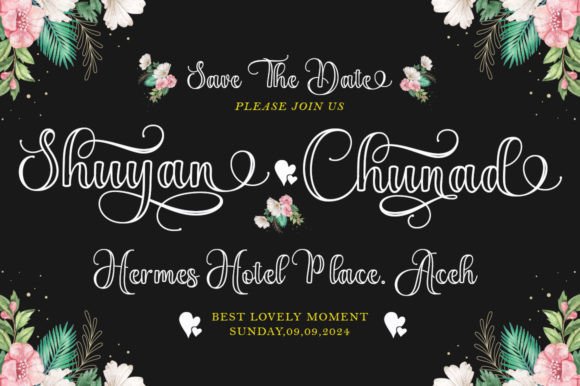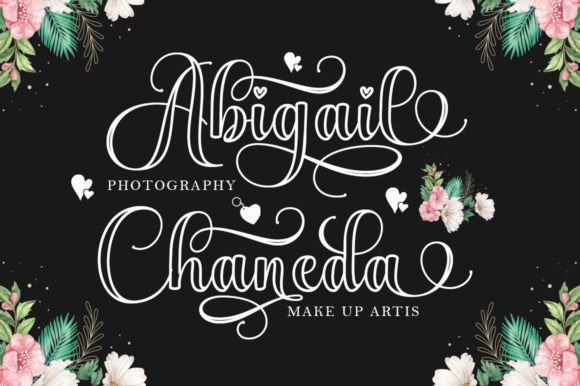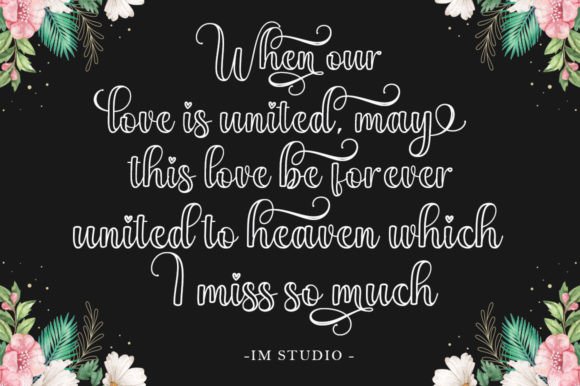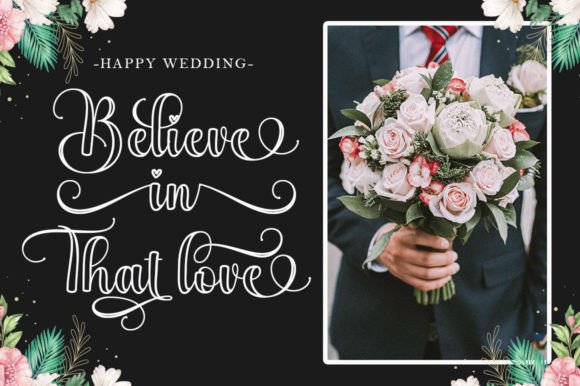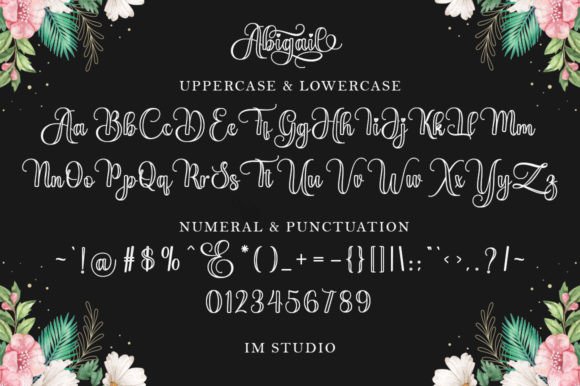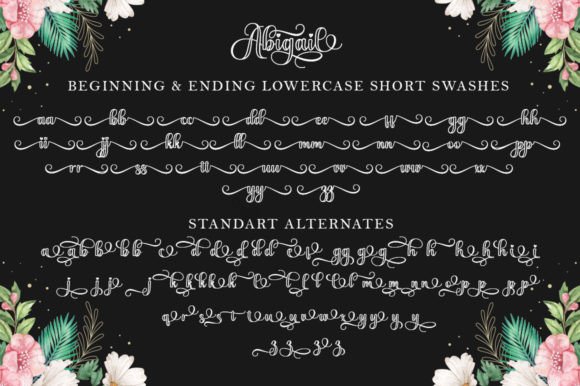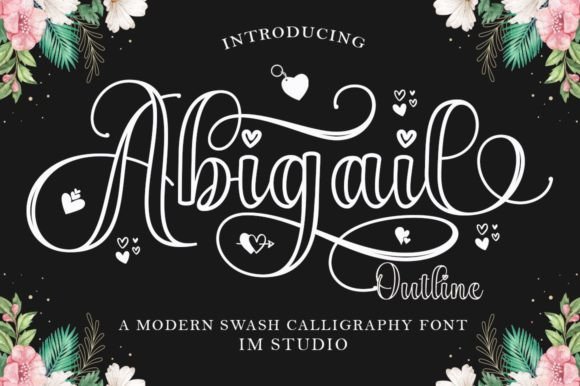
Introducing Abigail Outline Font: A Cute and Versatile Handwritten Font
Are you a designer or crafter looking for a font that can add a touch of warmth and personality to your projects? Look no further than the Abigail Outline Font. This beautiful, handwritten font is perfect for anyone who wants to create unique and eye-catching designs that stand out from the crowd.
What Makes Abigail Outline Font So Special?
Abigail Outline Font is a cute, versatile, and flexible handwritten font that is sure to turn any project idea into a real work of art. Its warm, romantic, and jovial style makes it perfect for a wide range of design projects, from wedding invitations and greeting cards to branding and packaging.
One of the things that sets Abigail Outline Font apart from other fonts is its unique outline style. The font features a delicate outline that adds a touch of elegance and sophistication to any design. At the same time, the font’s handwritten style keeps things feeling friendly and approachable.
PUA Coded for Easy Access to Glyphs and Swashes
Abigail Outline Font is PUA (Private Use Area) coded, which means that you can access all the glyphs and swashes easily. This makes it simple to customize your designs and add your own personal touch. With PUA coding, you can use the font’s built-in features to create unique and complex designs that would be difficult or impossible to achieve with a standard font.
Abigail Outline Font is a great choice for designers and crafters who want to add a personal touch to their projects. The font is easy to use and can be installed on your computer or used online. Whether you’re creating digital designs or handmade crafts, Abigail Outline Font is a versatile tool that can help you achieve your creative vision.
Use Abigail Outline Font for a Wide Range of Projects
Abigail Outline Font is a versatile font that can be used for a wide range of projects, including:
• Greeting cards and gift tags
• Branding and packaging
• Signs and posters
• Digital designs, such as social media graphics and blog headers
• Handmade crafts, such as scrapbooking and journaling
Why Choose Abigail Outline Font?
There are many reasons to choose Abigail Outline Font for your design projects. Here are just a few:
• Unique and eye-catching style: Abigail Outline Font has a distinctive style that will set your designs apart from the crowd.
• PUA coded for easy access to glyphs and swashes: This feature makes it easy to customize your designs and add your own personal touch.
• Versatile: Abigail Outline Font can be used for a wide range of projects, from digital designs to handmade crafts.
Abigail Outline Font is a beautiful, versatile, and flexible handwritten font that is perfect for designers and crafters who want to add a touch of warmth and personality to their projects. With its unique outline style, PUA coding, and easy-to-use design, this font is sure to become a favorite in your design toolkit. So why wait? Download Abigail Outline Font today and start creating stunning designs that will leave a lasting impression.